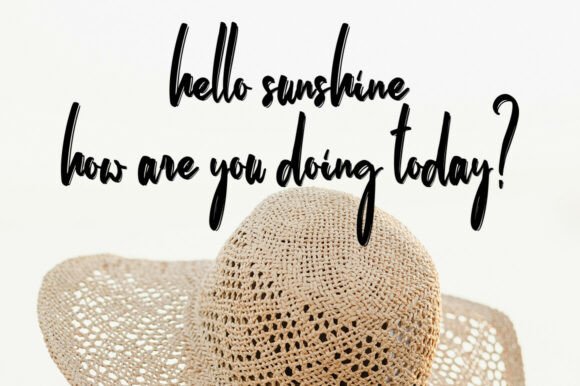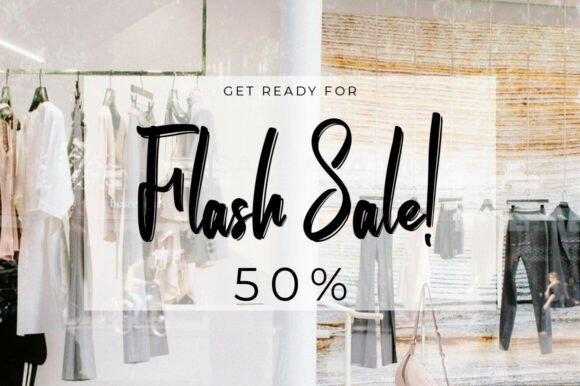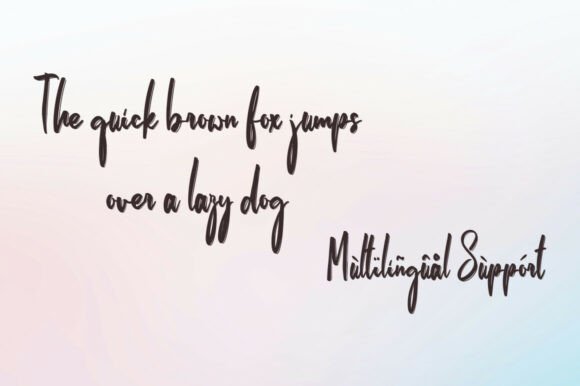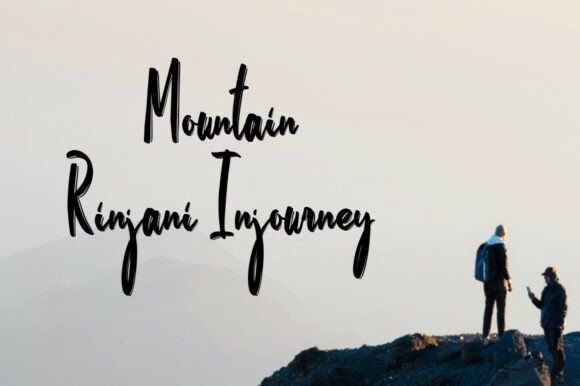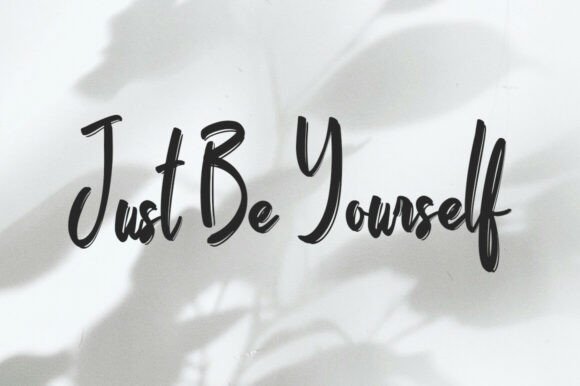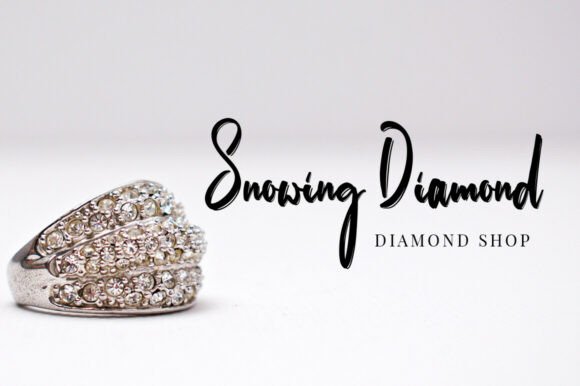
Introduction to Kapotteshi Font
Kapotteshi font is a bold and expressive script typeface that combines modern calligraphy with a touch of hand-drawn charm.
Its fluid strokes and dramatic contrast between thick and thin lines give it a dynamic presence, making each letter feel lively and intentional Kapotteshi is ideal for projects that require a personal and creative touch.